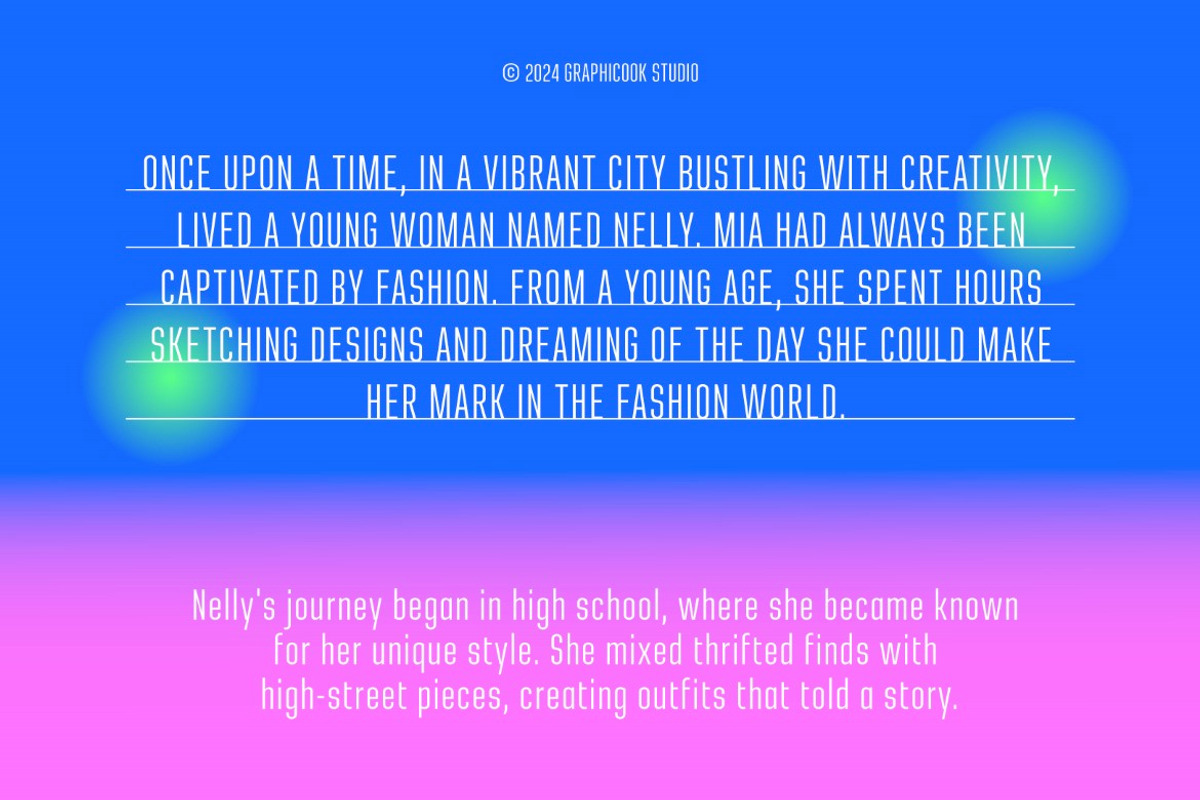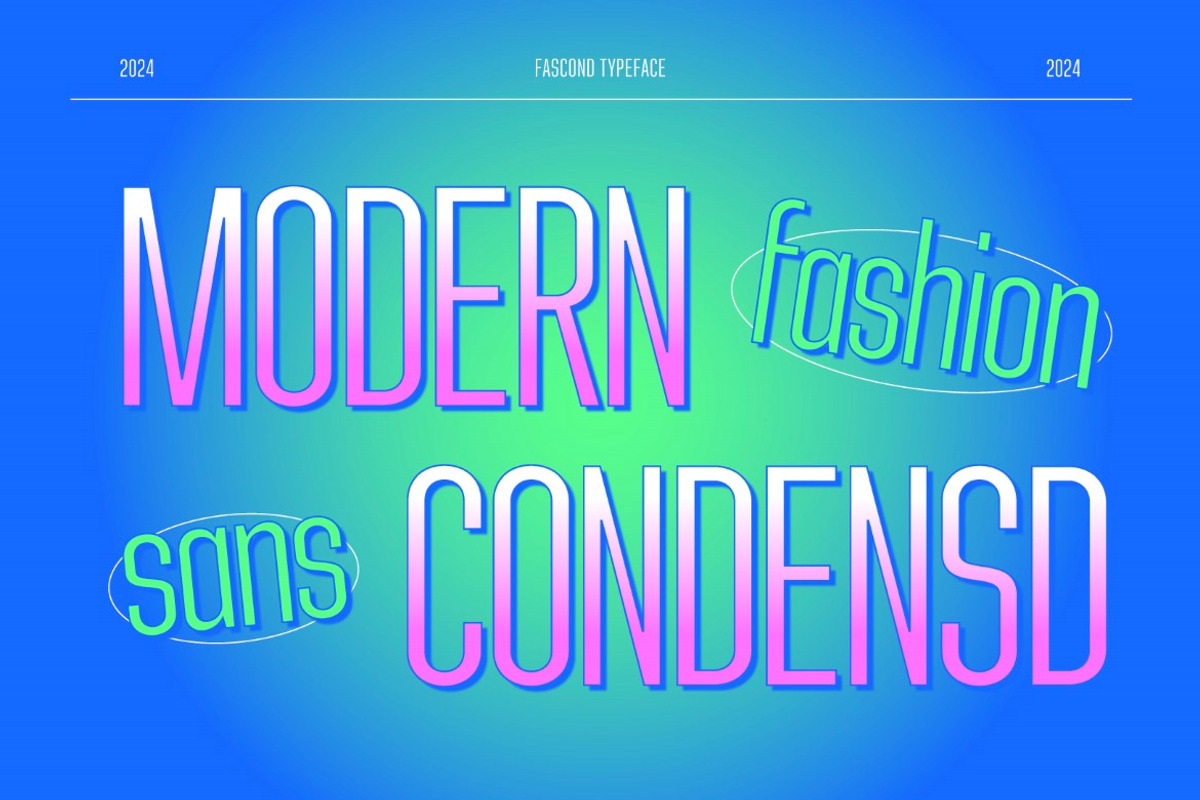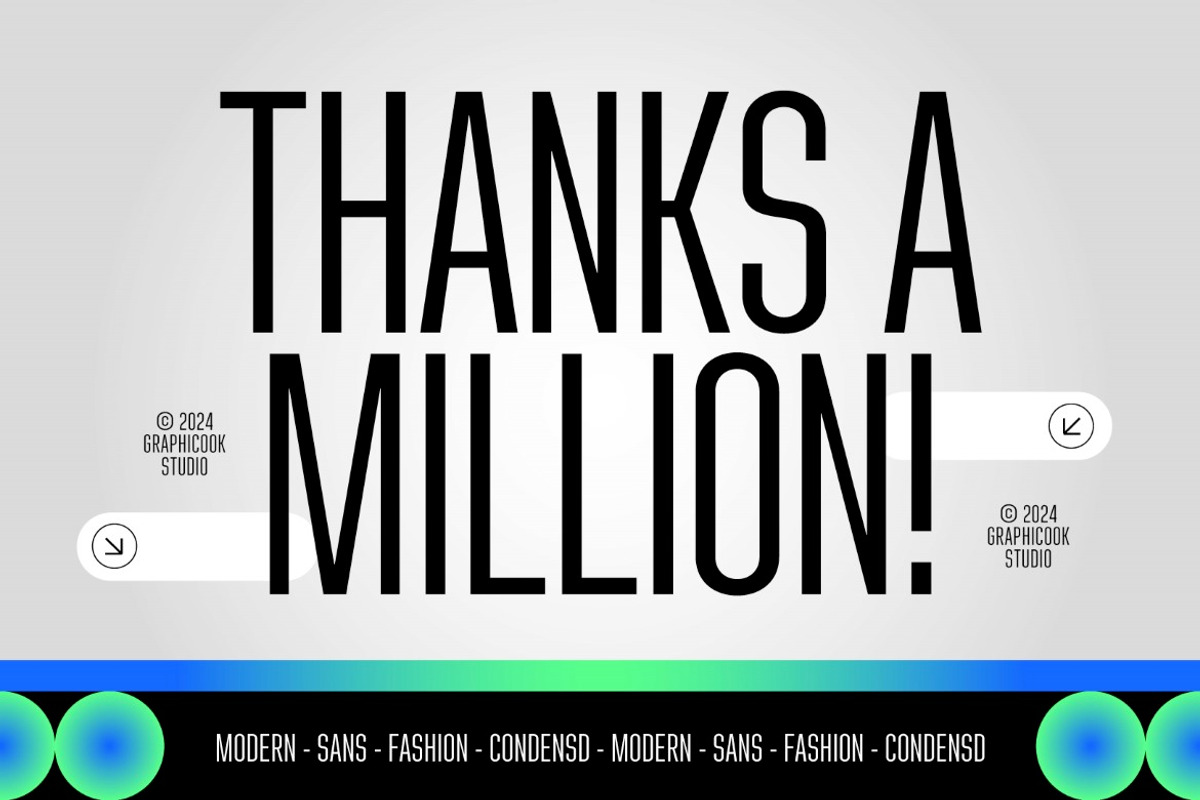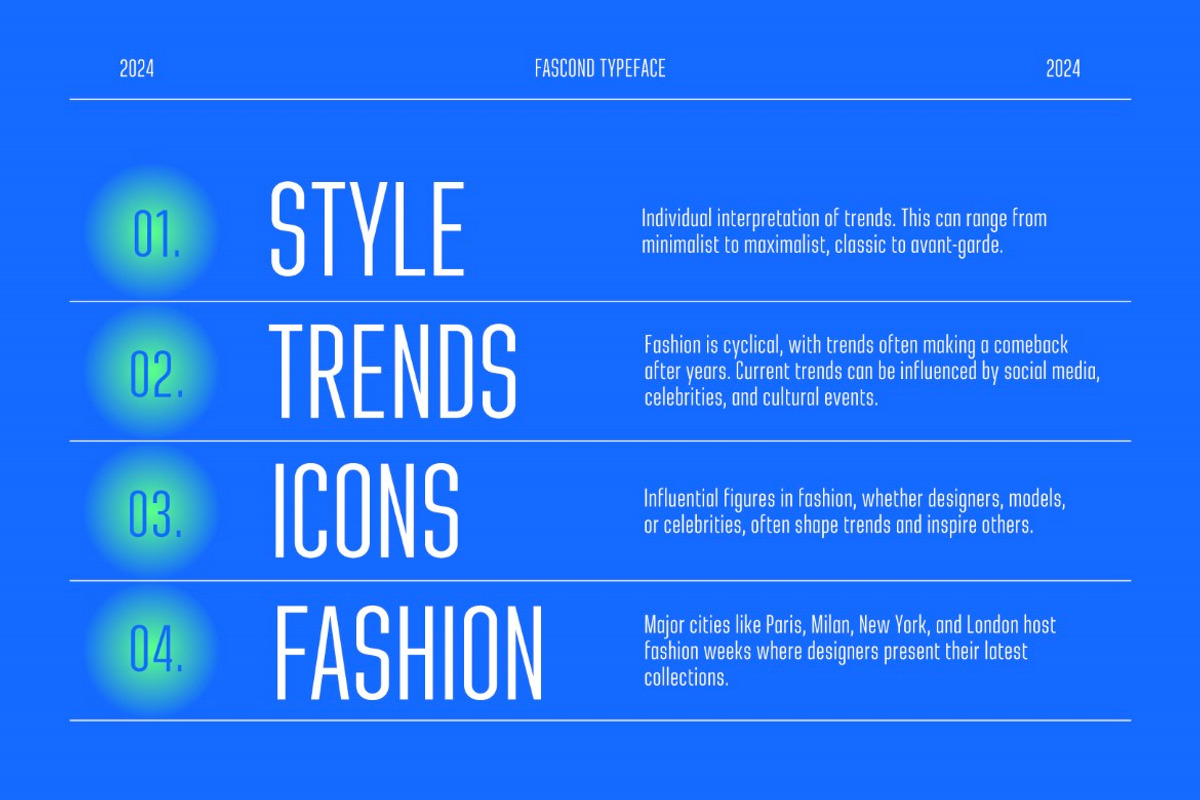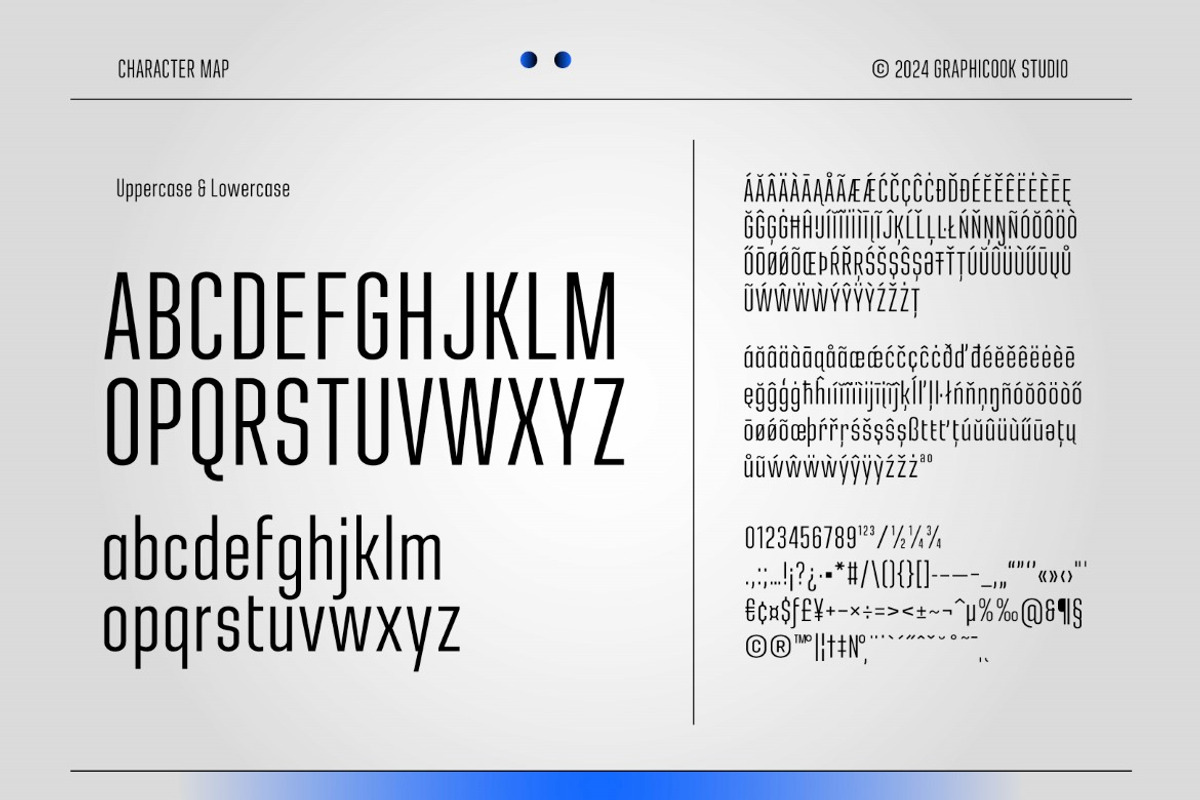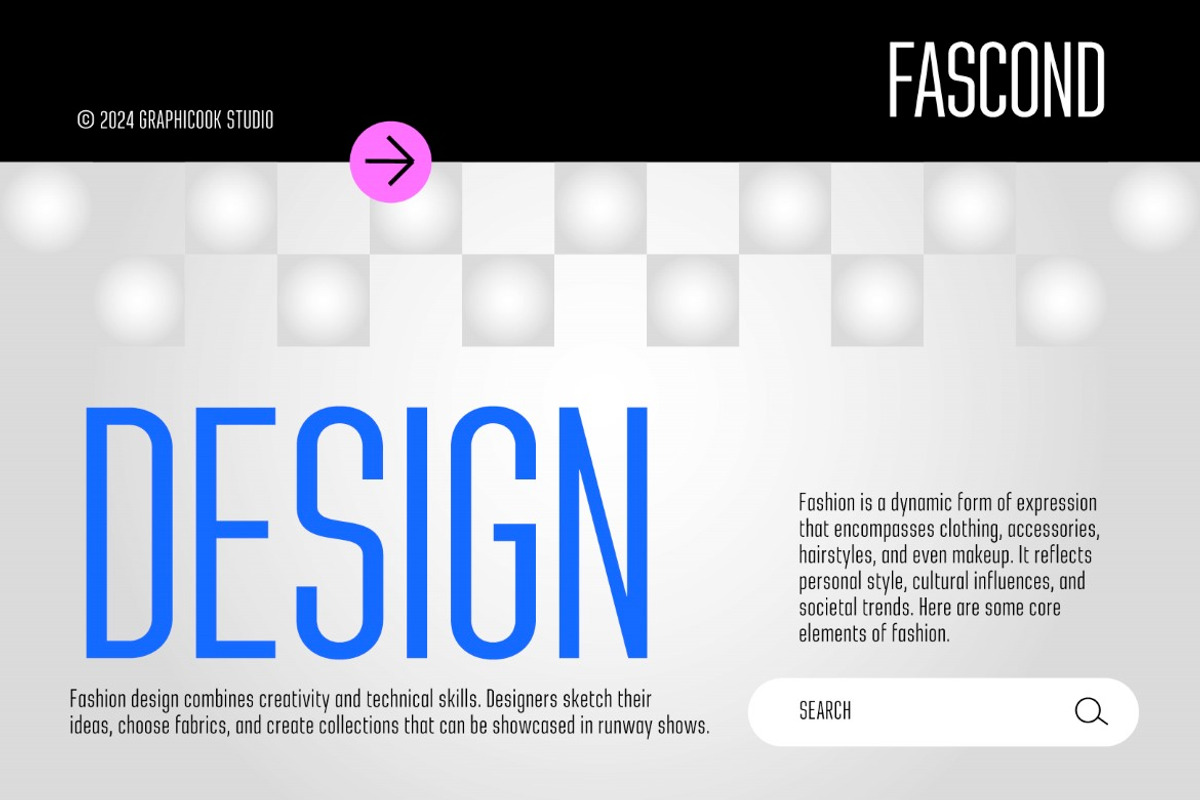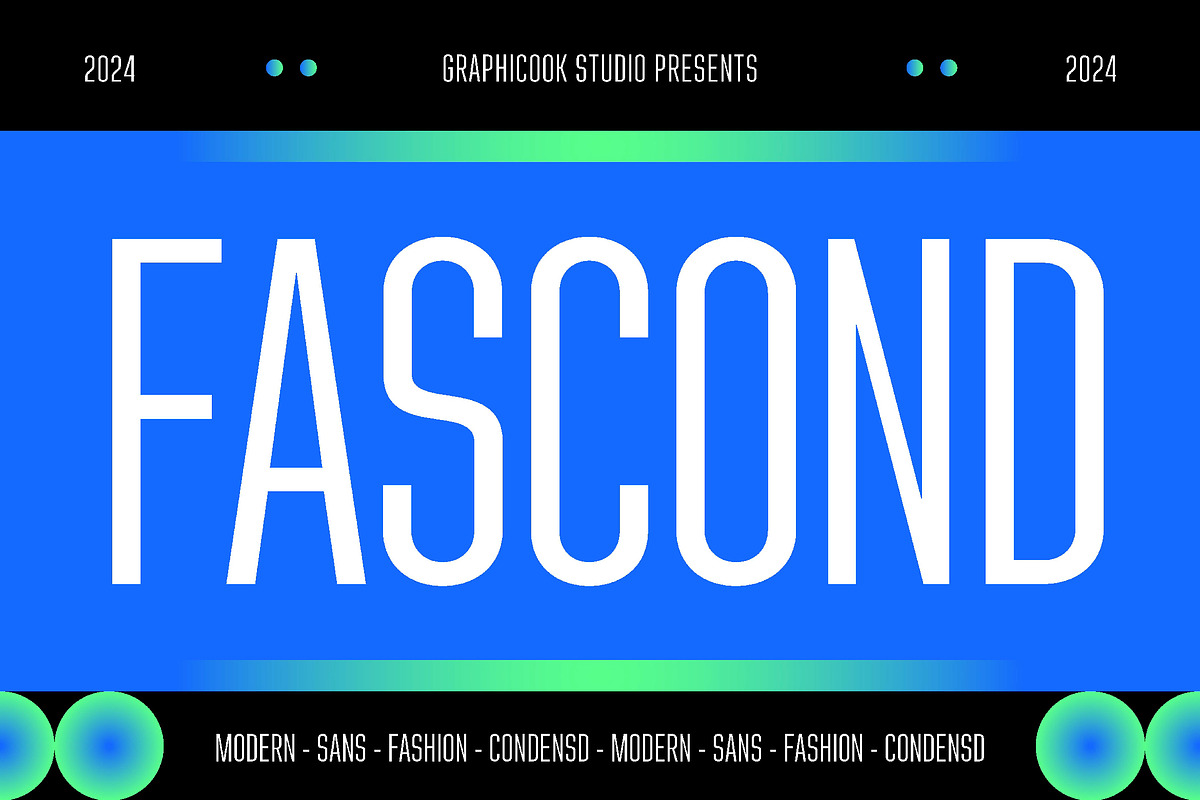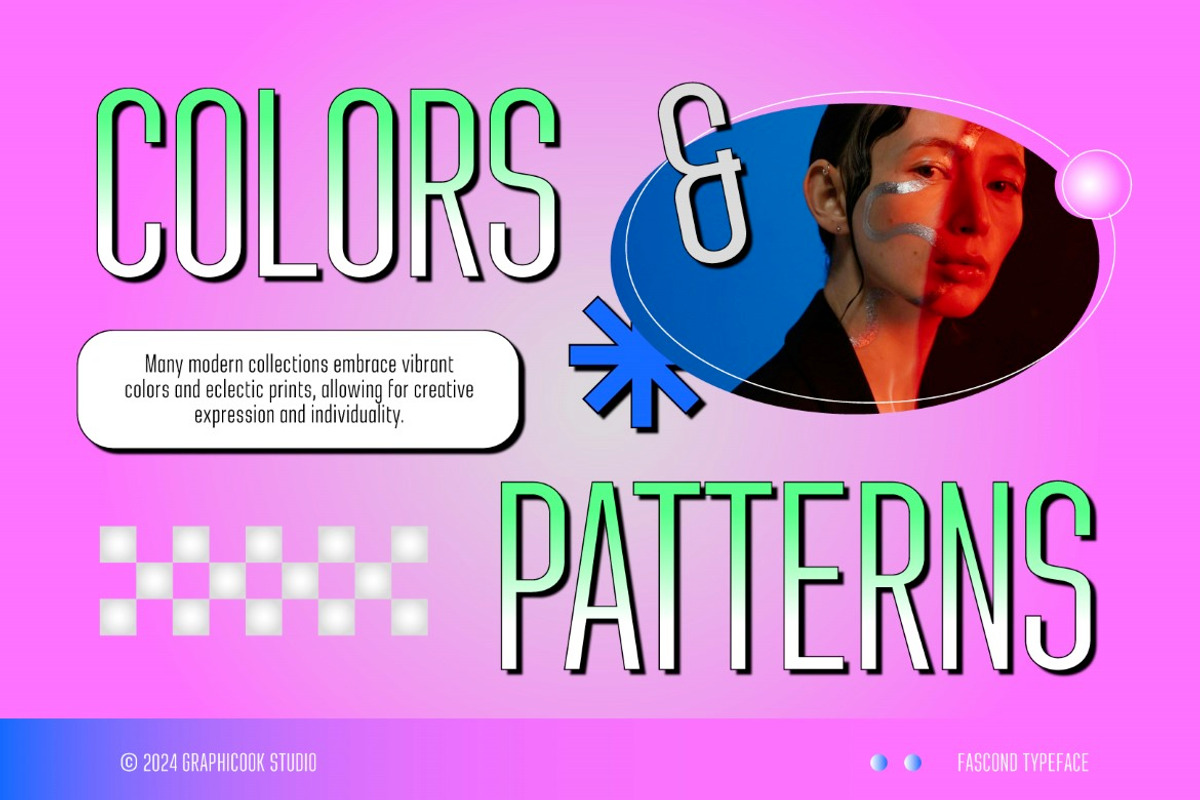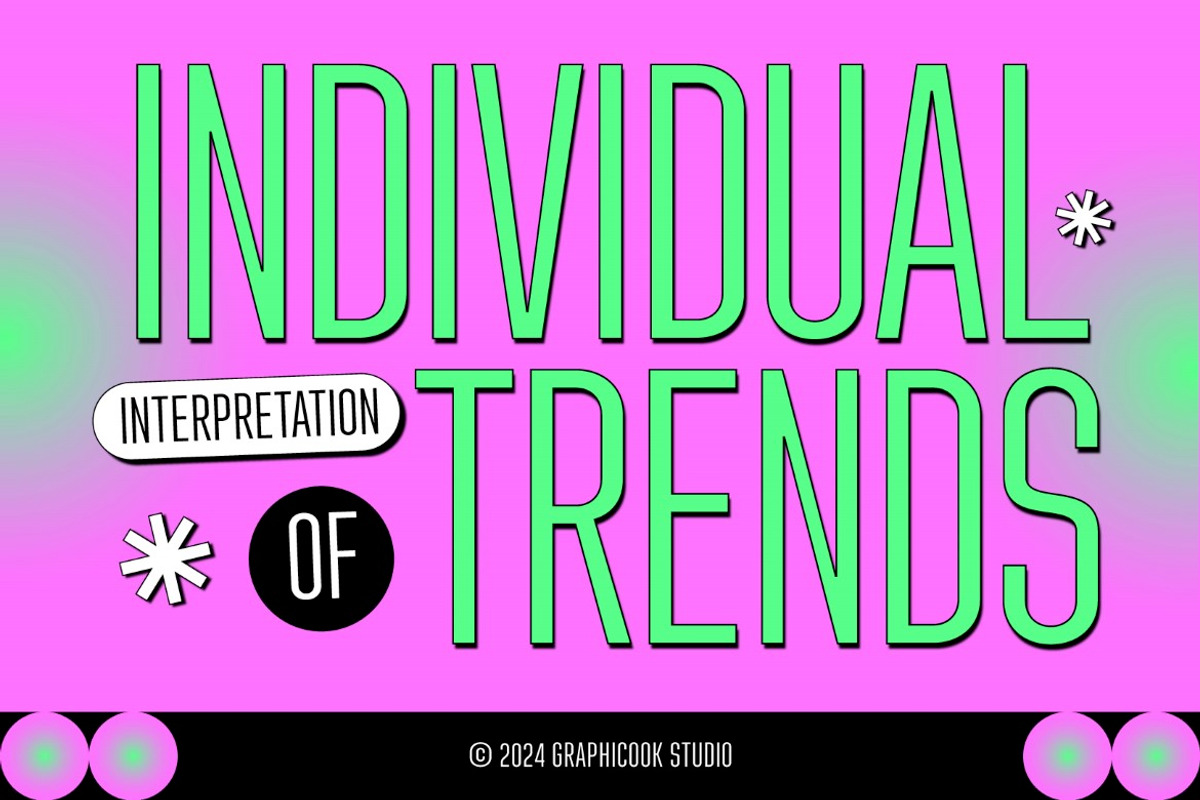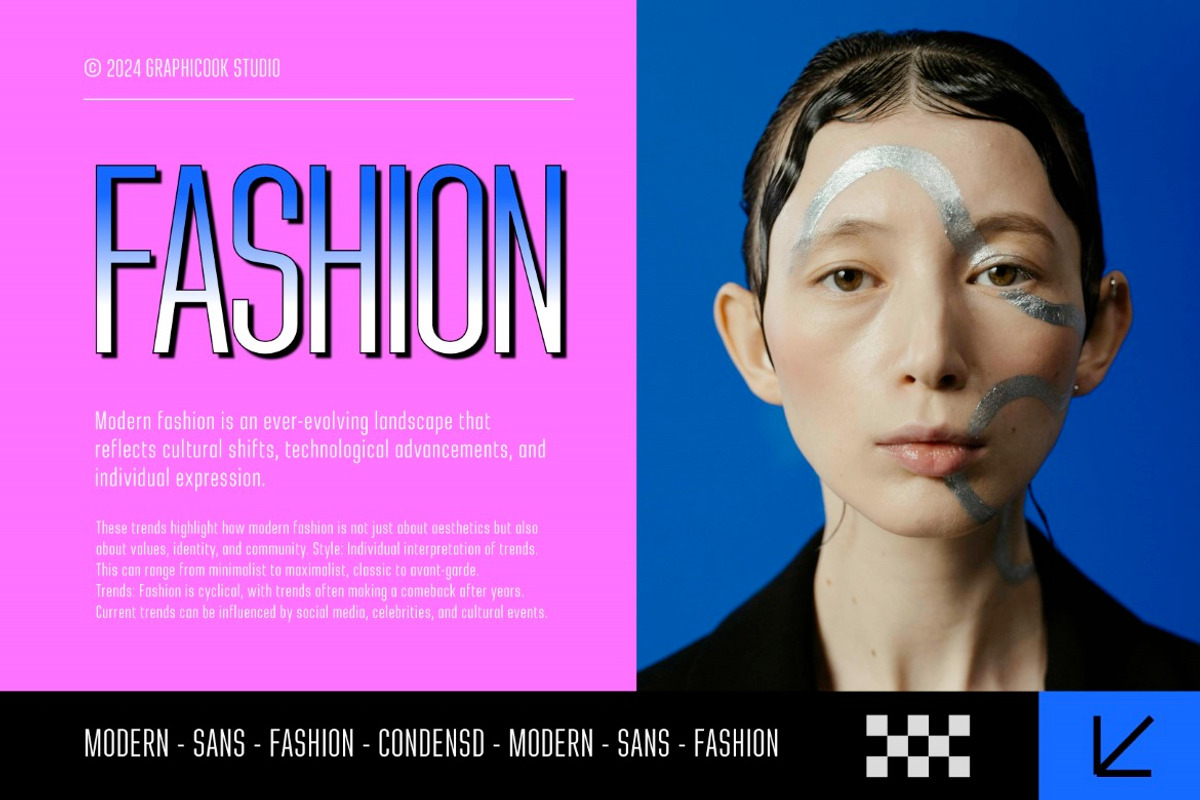
Fascond
Introducing Fascond Typeface! A sleek, modern condensed font with a minimalist gradient style. Its versatility makes it ideal for a wide range of design projects
Fascond is perfect for headlines, logotypes, magazines, packaging, quotes, movies, games, cover albums, book covers, and flyers, it's a perfect solution for creating eye-catching designs that stand out in any context.